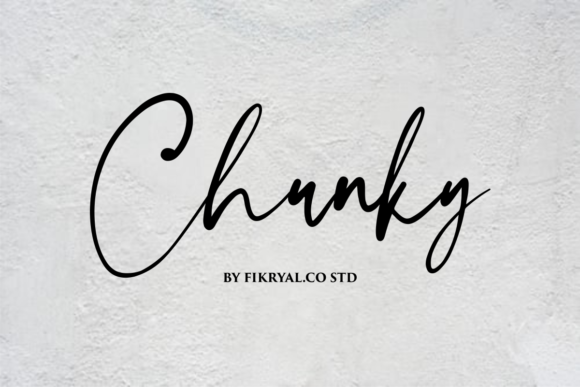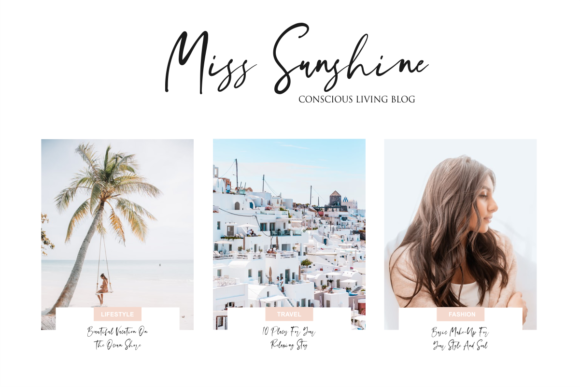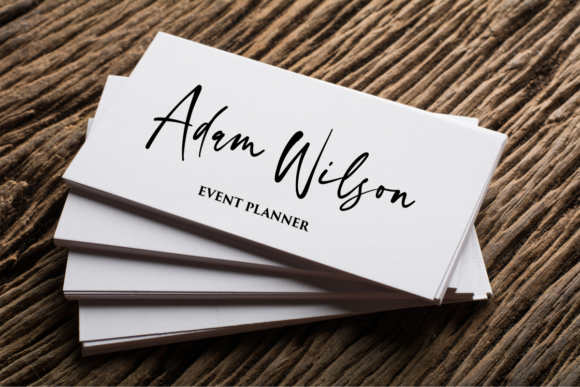
Chunky Font
Chunky is a fancy handwritten font. Clean and a little bit quirky, this font is the perfect fit for all of your logos, branding, social media, and crafty DIY projects. Get inspired by its authentic feel and use it to create gorgeous wedding invitations, beautiful stationary art, eye-catching social media posts, and cute greeting cards.